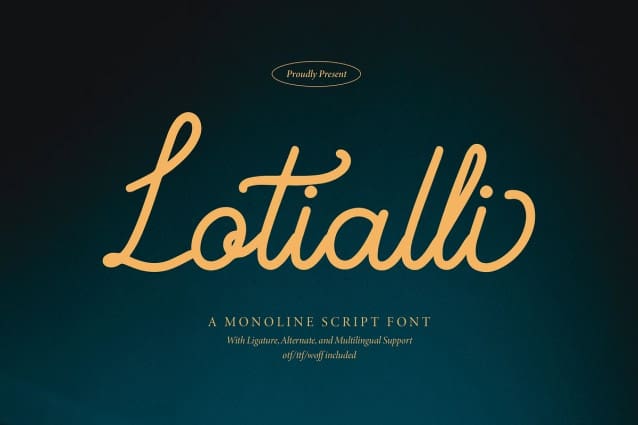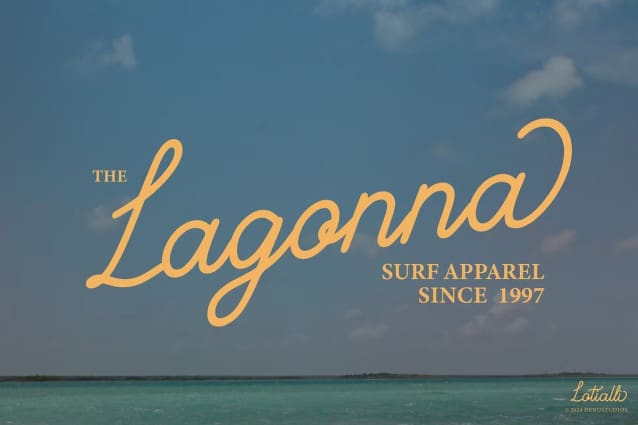
Lotialli Monoline Font
Lotialli Monoline Font, from Denustudios, suitable for any projects such as: logos, branding projects, homeware designs, product packaging, mugs, quotes, posters, shopping bags, t-shirts, book covers, name card, invitation cards, greeting cards, label, photography, watermark, special events, and all your other lovely projects that need a Monoline Script Font taste.